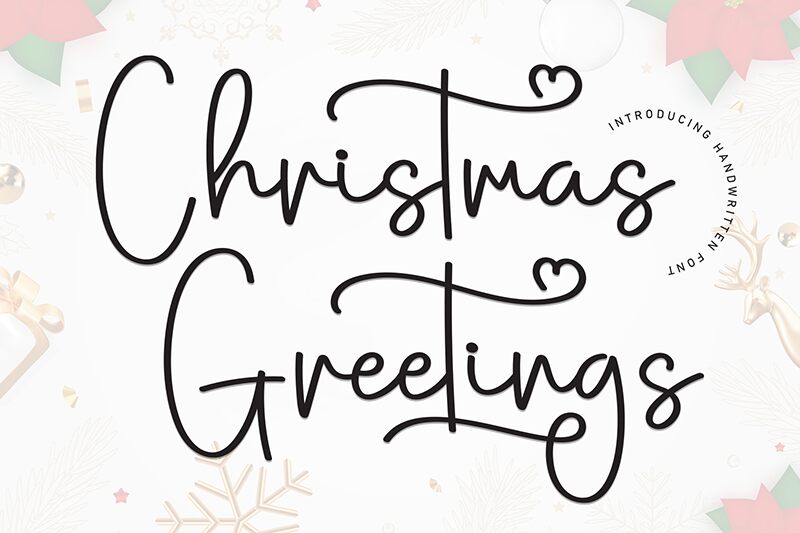
Christmas Greetings
Christmas Greetings font by Scratchones is a light handwritten font that brings casual elegance to every letter and word. Despite its modern style, it carries an informal sophistication that remains friendly yet elegant and decorative. Each glyph gives a smooth handwritten appearance mimicking signature cursive writing.
Advertising, posters, branding, insignia designs, or print design projects can all benefit from this free handwritten font. Logos, social media posts, greeting cards (Christmas ones especially) stationery projects are no exception.